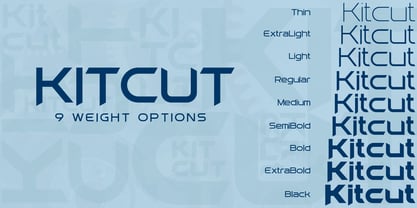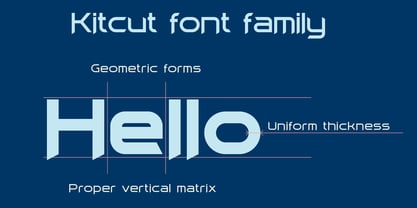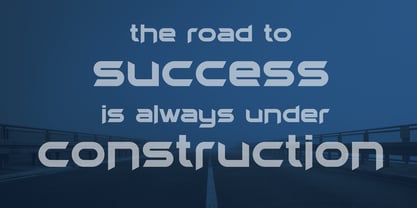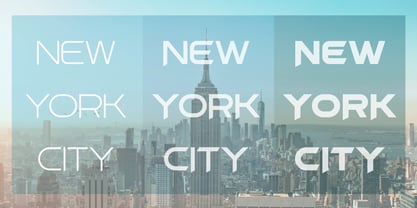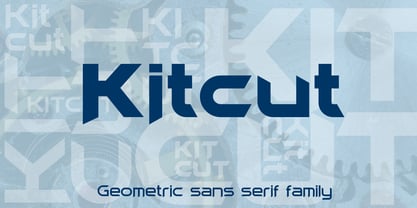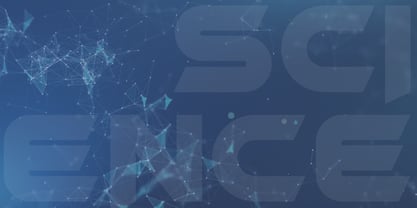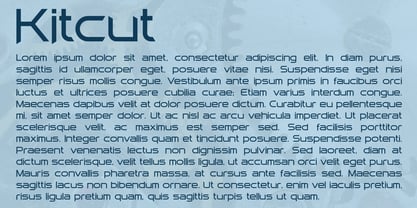
Kitcut
by VladB
The Kitcut Font Family was designed by Volodymyr Berla and published by VladB. Kitcut contains 9 styles and family package options. More about this family
Kitcut is a contemporary technical sans serif geometric font characterized by its distinctive cut edges. It features a comprehensive set of upper and lower case characters, supporting Latin, Cyrillic, Latin Eastern Europe, Turkish, Baltic, and more, totaling over 500 symbols. The Kitcut family offers 9 thickness variations, categorized into 3 subgroups based on thickness: S (small), M (middle), and B (bold), with 3 thickness options available within each subgroup. This versatile font is ideal for brand development, poster creation, and various graphic design projects, as well as for word processing tasks.
Designers: Volodymyr Berla
Foundry: VladB